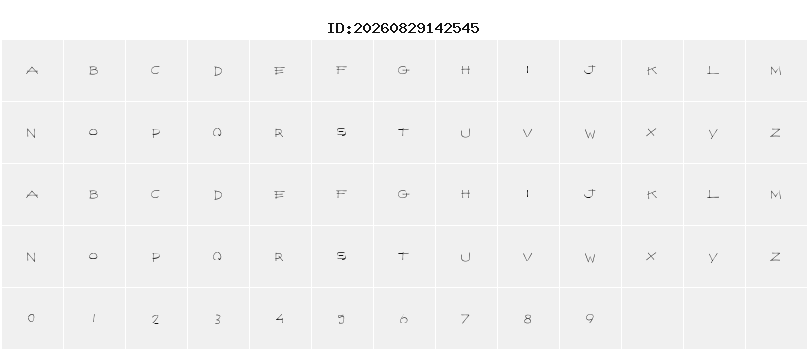
The Hundred King Preview
• Font Name: The Hundred King
• Manufacturer: Maelle.K
About The Hundred King.ttf
The Hundred King.ttf is a modern, elegant sans-serif font designed for ultimate readability and visual harmony. Perfect for branding, headlines, web design, and print materials.